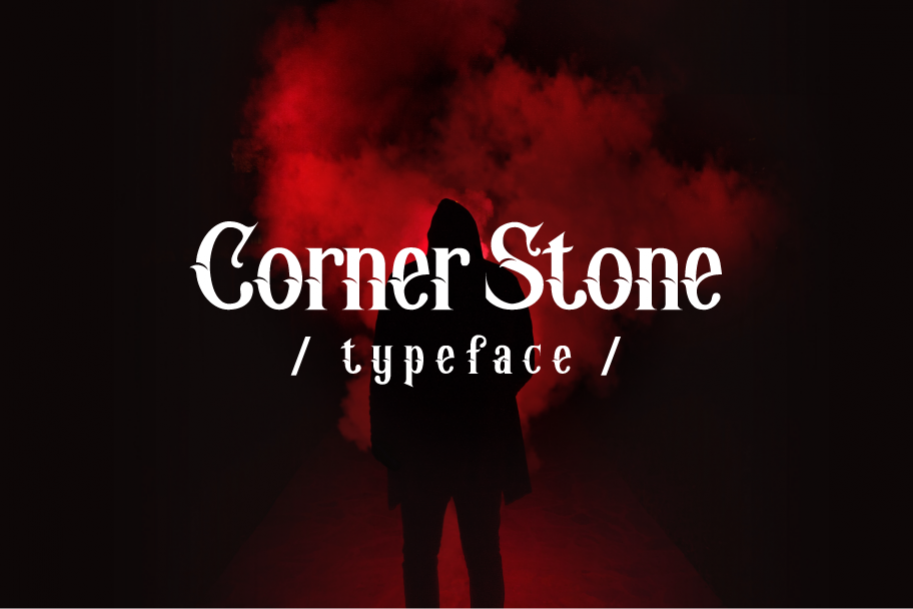
Corner Stone Typeface
Corner Stone
is a new blackletter typeface. Corner Stone is suitable font for logo,
signature, label, poster, letterhead, music/book cover, etc.